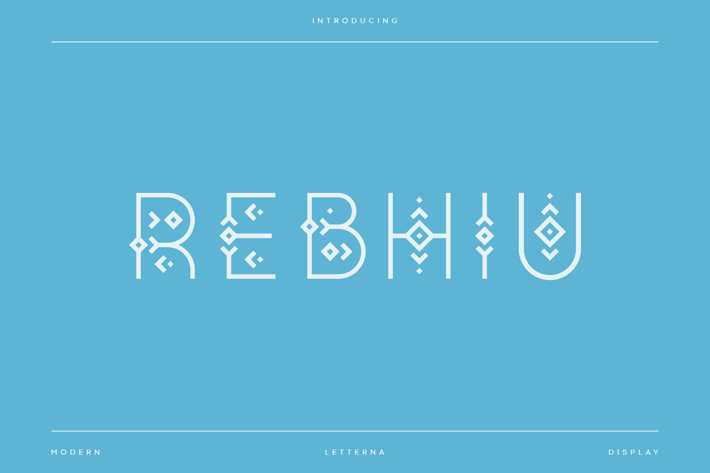
Rebhiu - Vintage Artdeco Font
Letterna
Rebhiu is a linear font in a minimalist all-caps display, this original look will appeal to a wide variety of craft ideas, from logo, brochure, magazine, letterhead, title and many other type of designs. The hippie-inspired Rebhiu with a boho theme is perfect for complementing hipsters and bohemian designs, the nordic feel is also evident in this font.